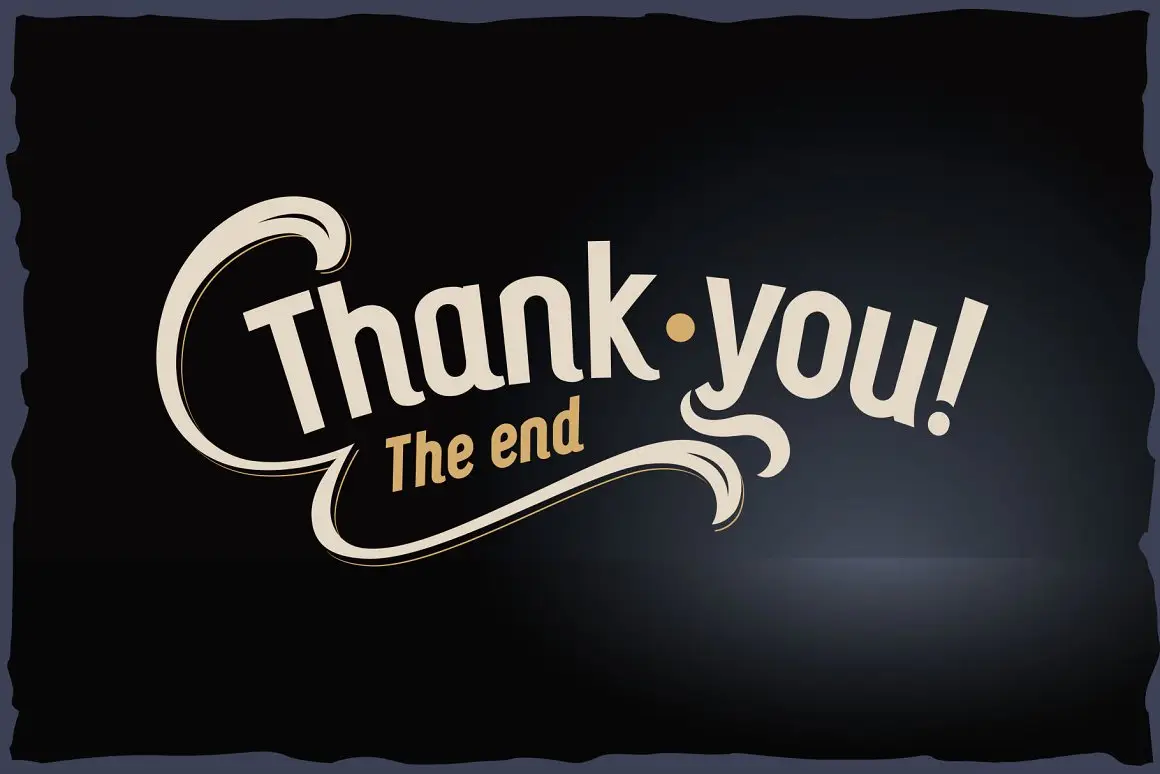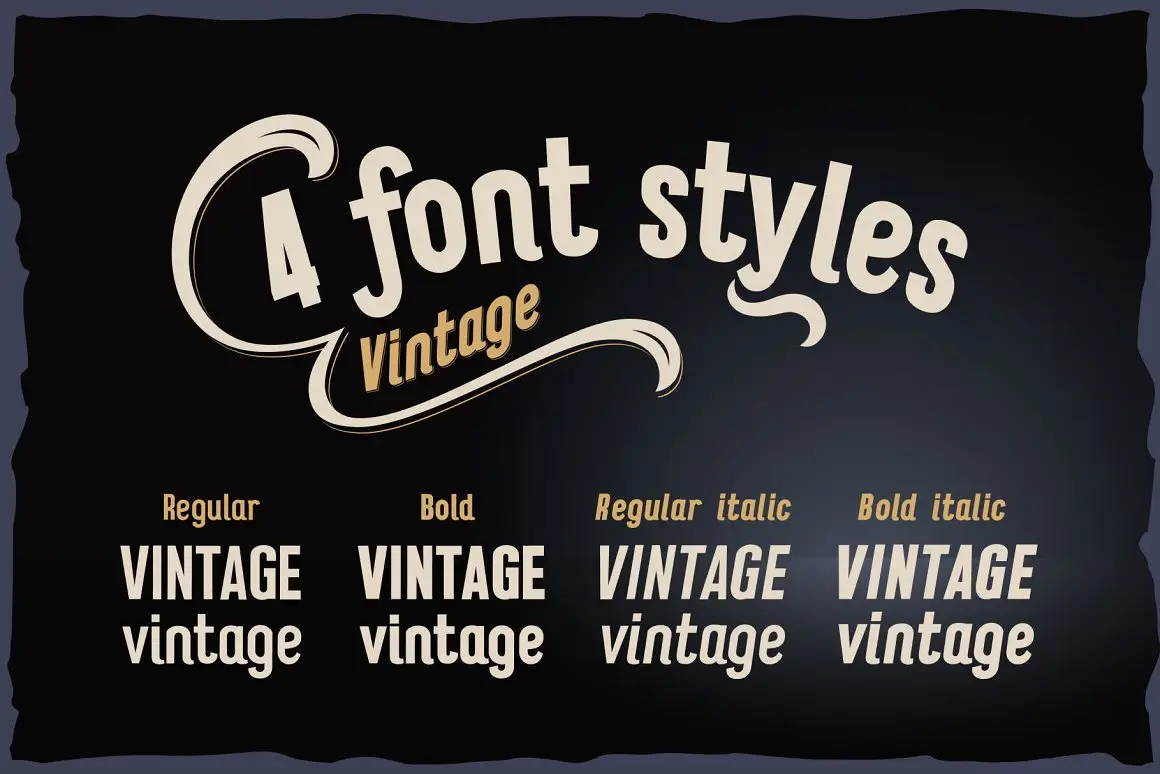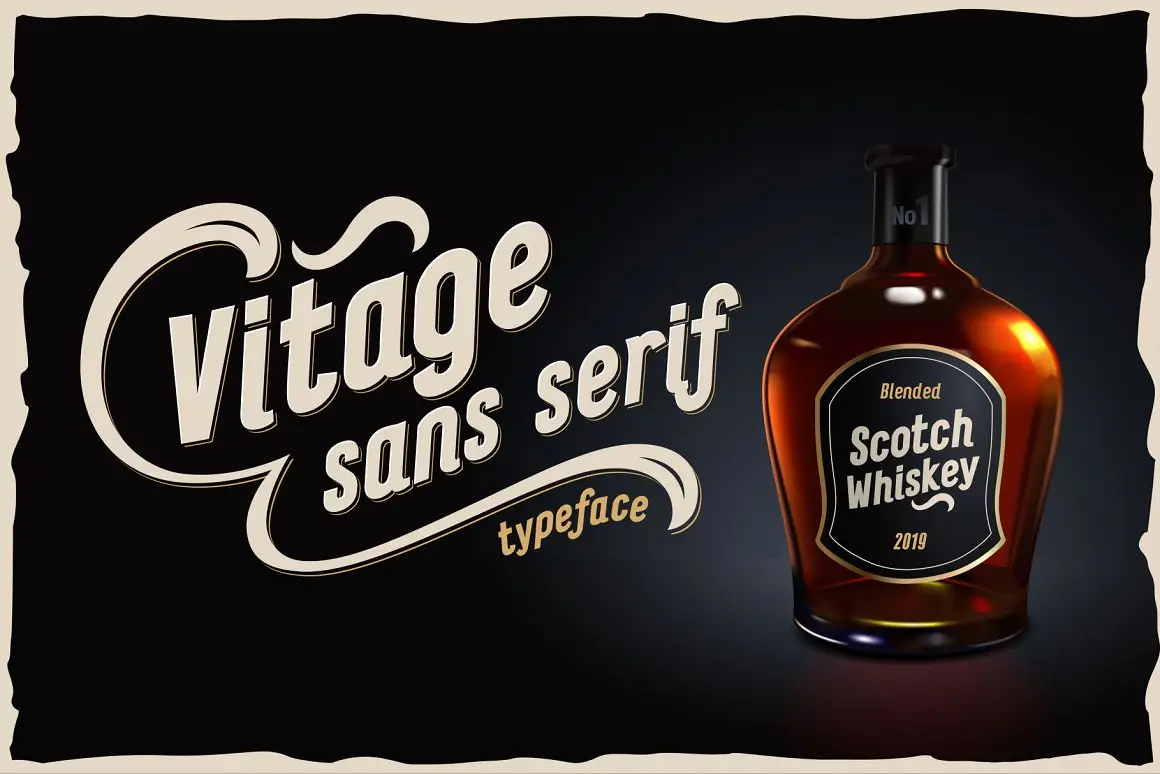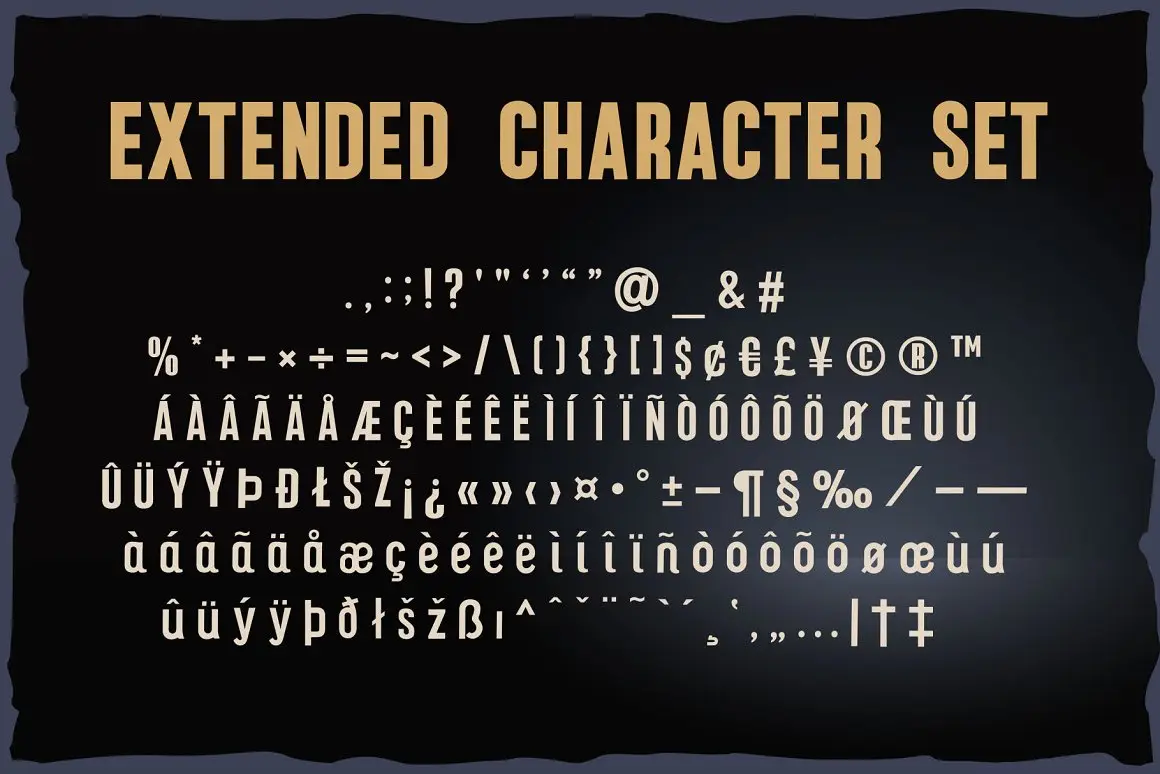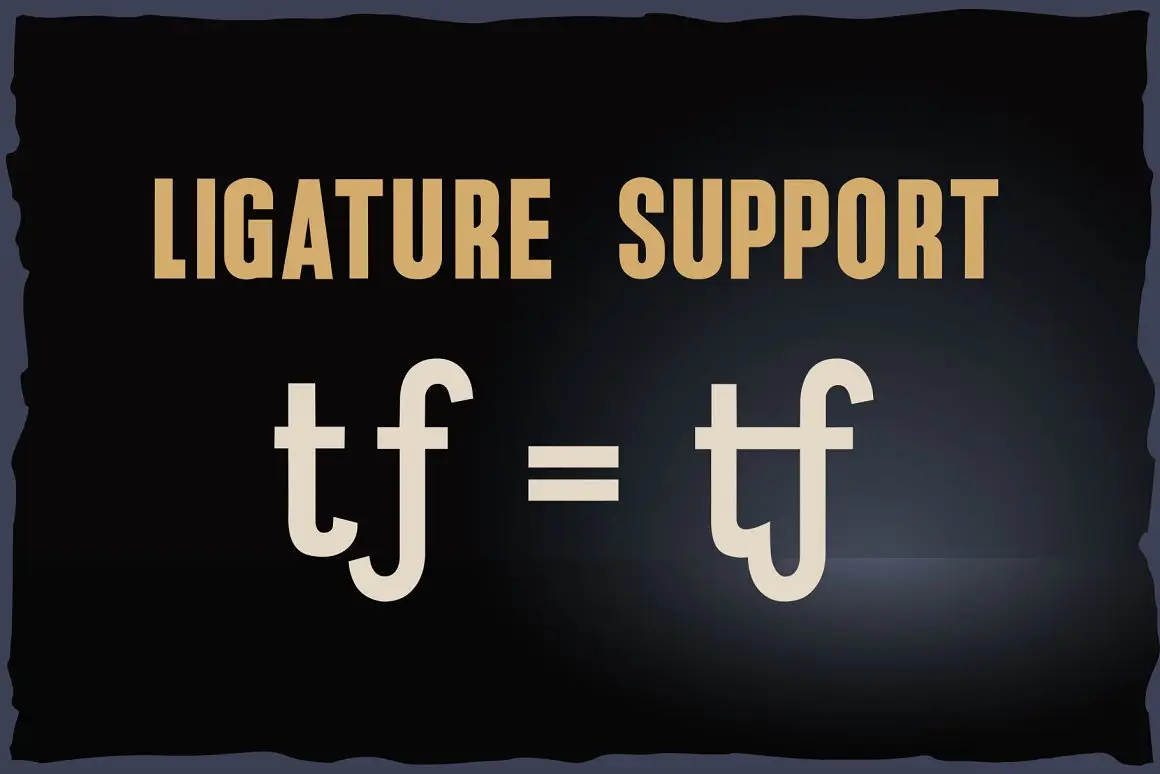
Vitage Elegant Sans Serif Otf Font
Introducing the Vitage Elegant Sans Serif OTF Font, a sophisticated typeface designed to elevate your design projects. This font combines modern aesthetics with classic elegance, making it perfect for a variety of applications.
• Clean and modern sans serif design
• Highly legible for both print and digital use
• Stylish uppercase and lowercase letters
• Character Set: Latin, Extended Latin
• Ideal for branding and logo design
• Perfect for website typography and UI elements
• Great for print materials like business cards and brochures